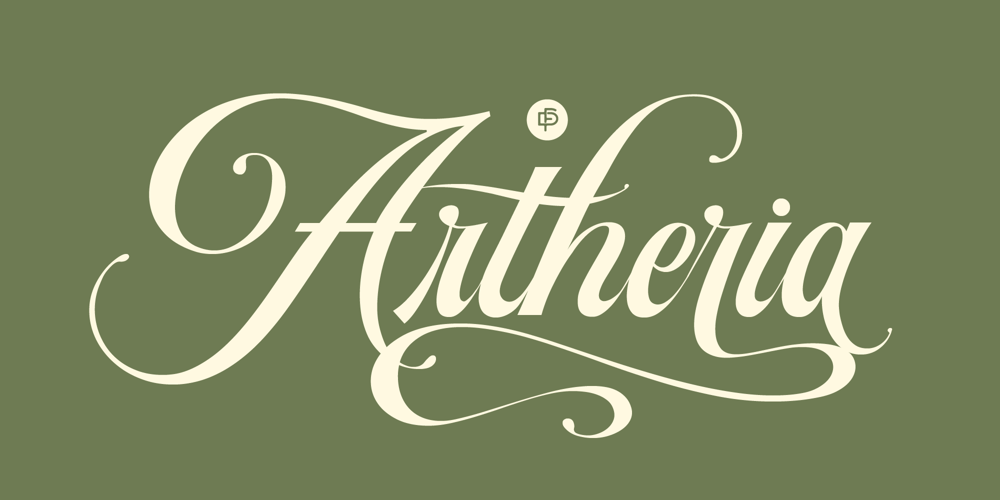
Fd Artheria Script Font Family was designed by Ramandhani Nugraha and published by Fortunes Co. Fd Artheria Script contains 1 styles and family package options. Artheria is a script font with a classic vintage style. The classic style of this font is suitable for retro/vintage-themed designs but can also be used for designs with other styles. This font is equipped with 130+ stylistic sets, Ligatures, and multi-language support.